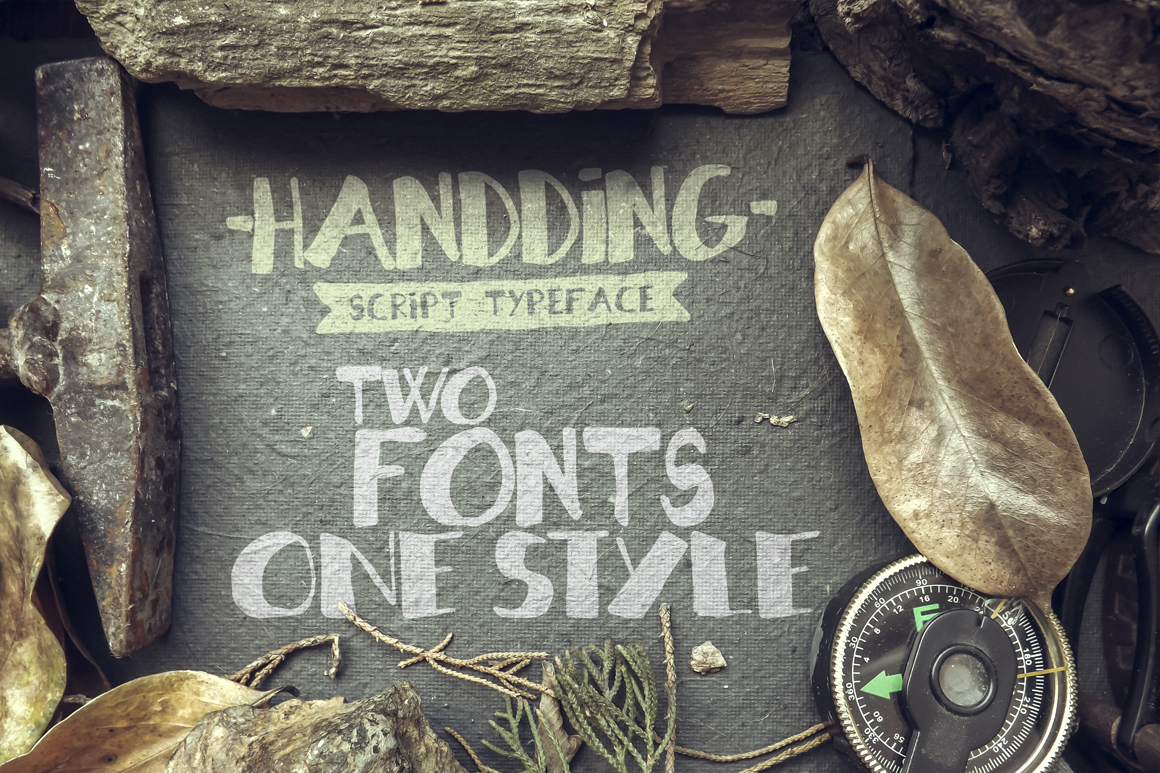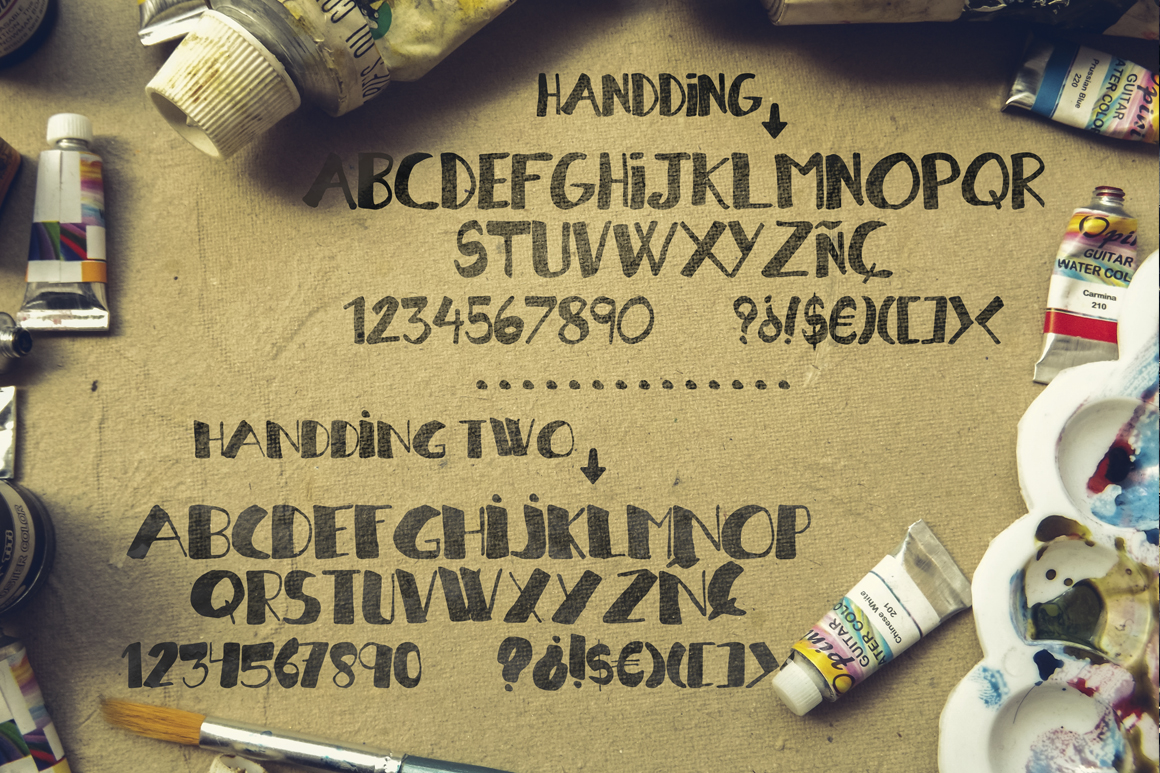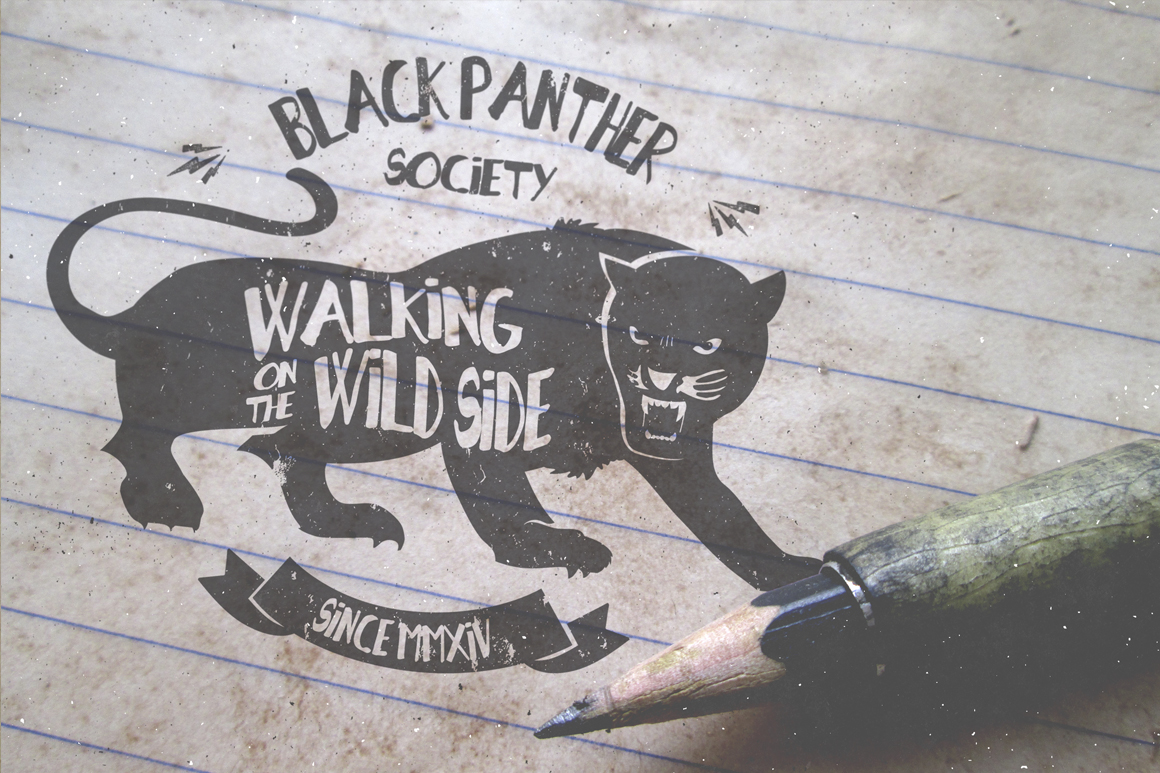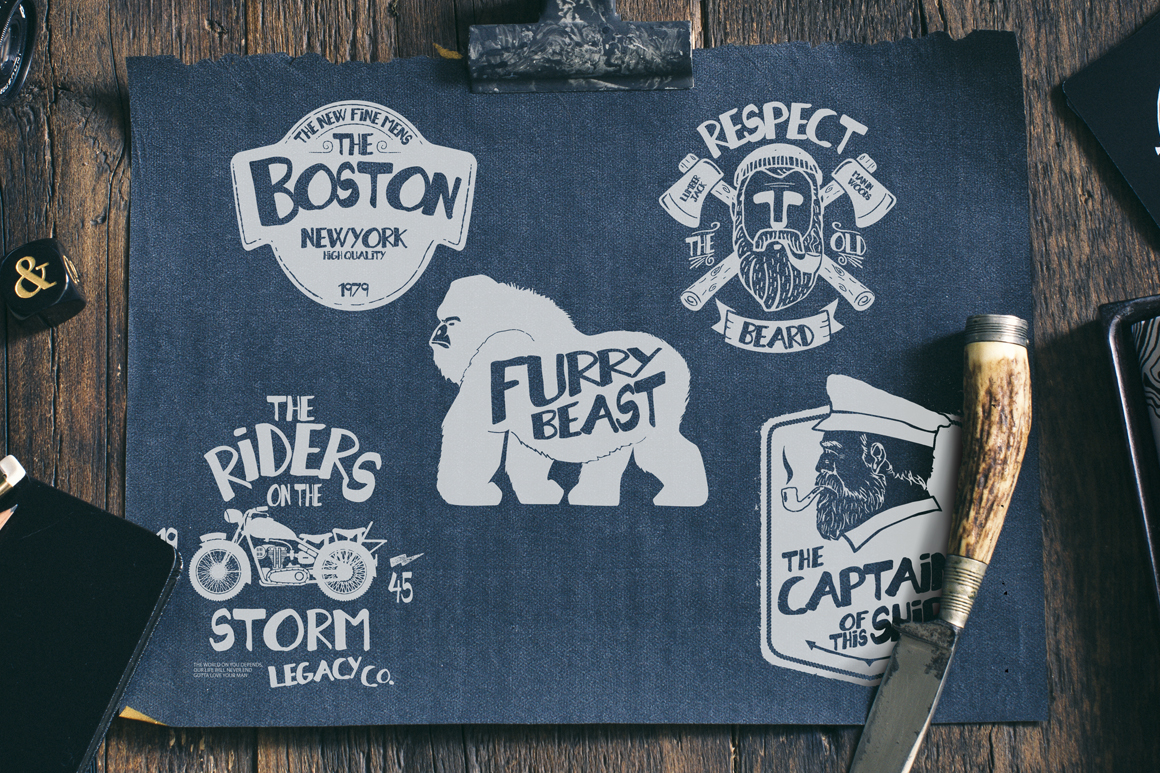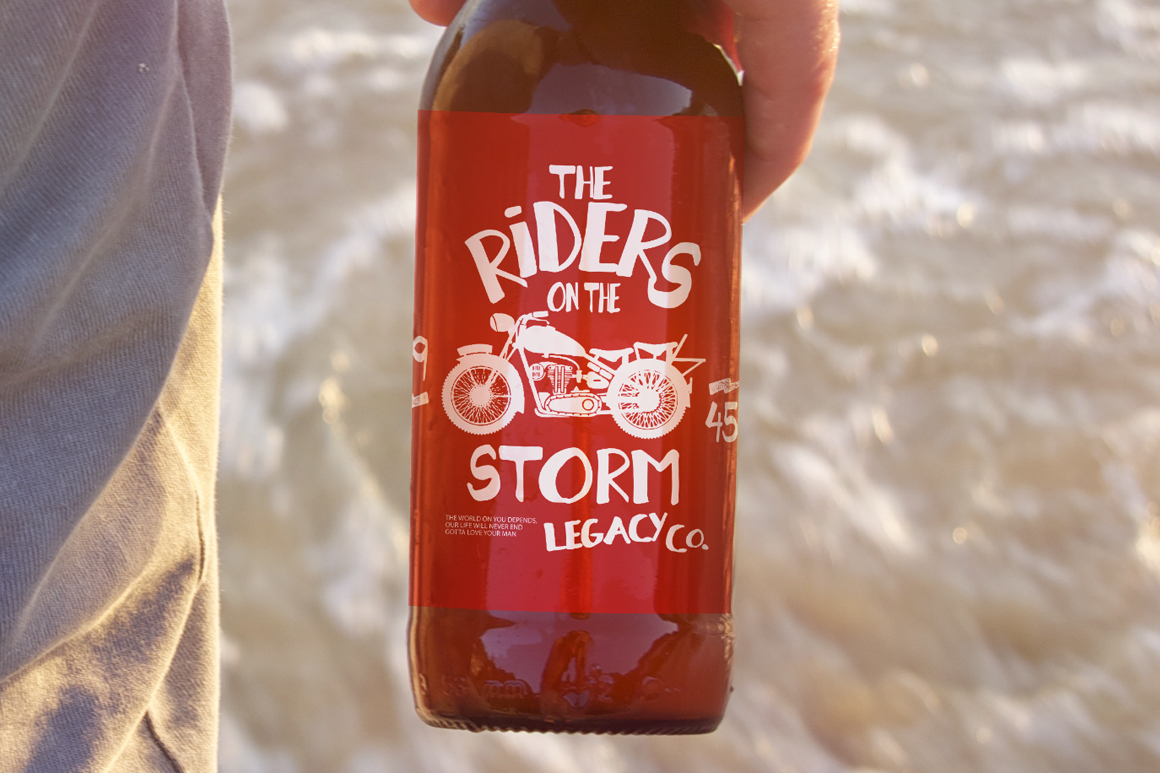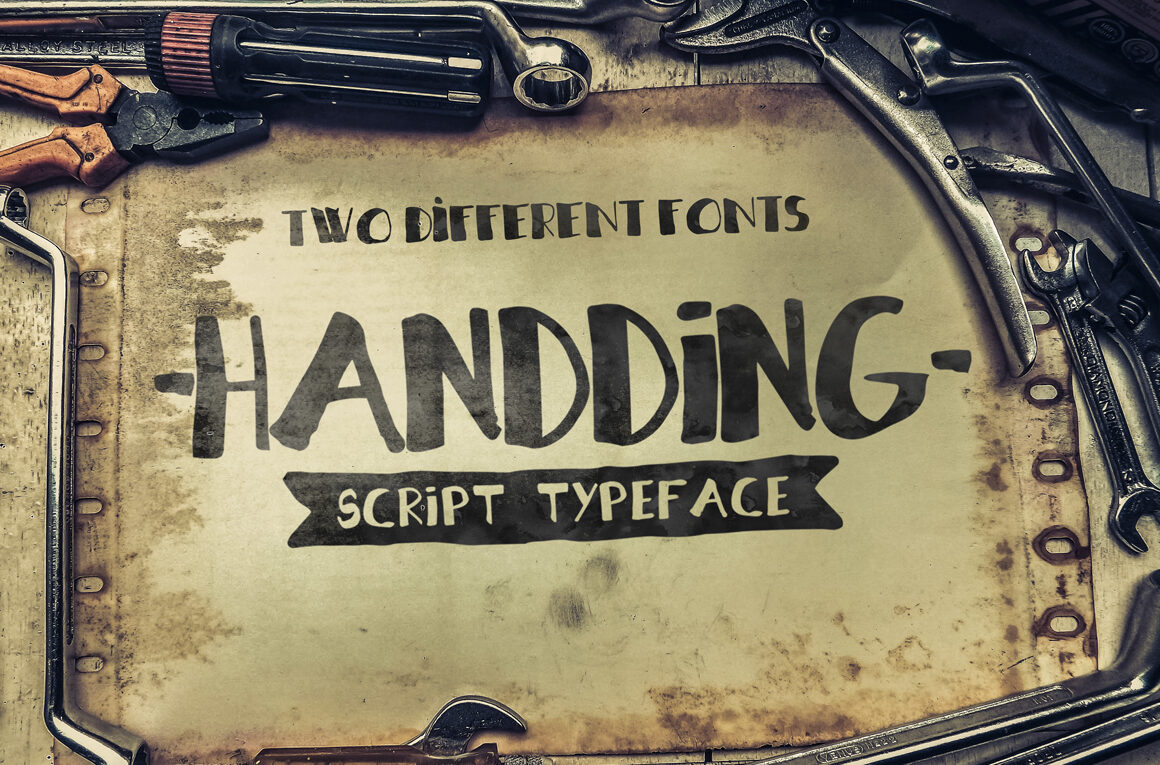
Introducing Handding Font: Elevate Your Designs with Handcrafted Elegance
Are you tired of using the same old fonts in your designs? Look no further than the Handding font, a beautiful and unique script font that is completely drawn by hand. In this article, we’ll explore the Handding font and its sibling, Handding Two, and show you how these stunning fonts can elevate your designs and make your text stand out from the rest.
The Story Behind Handding Font
The Handding font is a labor of love, carefully crafted by hand to bring a touch of elegance and sophistication to your designs. This all upper-case script font is perfect for headlines, titles, and any other text that needs to make a statement. With its flowing curves and intricate details, the Handding font is sure to capture the attention of your audience and leave a lasting impression.
Handding Font: A Closer Look
So, what makes the Handding font so special? Here are just a few of its standout features:
• Hand-drawn with love: Each letter in the Handding font has been carefully drawn by hand, giving it a unique and personal touch.
• All upper-case script font: The Handding font is an all upper-case script font, making it perfect for headlines, titles, and other text that needs to stand out.
• Intricate details: The Handding font features intricate details and flourishes that add to its elegance and sophistication.
Meet Handding Two: The Perfect Complement
But the Handding font isn’t alone. Its sibling, Handding Two, is just as beautiful and elegant, offering a slightly different take on the original font. Here are a few key features of Handding Two:
• Similar yet distinct: Handding Two has a similar feel to the original Handding font, but with its own unique twists and flourishes.
• Perfect for pairing: Handding Two pairs perfectly with the original Handding font, making it ideal for designs that need a bit of contrast.
• Equal elegance: Like the original Handding font, Handding Two is an all upper-case script font with intricate details and a hand-drawn feel.
Using Handding Font in Your Designs
So, how can you use the Handding font and Handding Two in your designs? Here are a few ideas to get you started:
• Headlines and titles: Use the Handding font or Handding Two to create eye-catching headlines and titles that draw attention to your content.
• Branding and logos: The Handding font and Handding Two are perfect for creating unique and memorable brand identities.
• Invitations and announcements: Add a touch of elegance to your invitations and announcements with the Handding font or Handding Two.
• Signage and displays: Use the Handding font or Handding Two to create eye-catching signage and displays that showcase your message.
Tips for Working with Handding Font
Here are a few tips to help you get the most out of the Handding font and Handding Two:
• Use sparingly: Because of its elegant and eye-catching nature, it’s best to use the Handding font and Handding Two sparingly to avoid overwhelming your design.
• Pair with contrasting fonts: Pair the Handding font or Handding Two with contrasting fonts to create visual interest and add depth to your design.
• Experiment with colors: Don’t be afraid to experiment with different colors and textures to add an extra layer of interest to your design.
In conclusion, the Handding font and Handding Two are two beautiful and unique script fonts that are sure to elevate your designs and make your text stand out from the rest. With their hand-drawn elegance and intricate details, these fonts are perfect for designers and crafters looking to add a touch of sophistication to their work. So why not give them a try and see the difference for yourself?